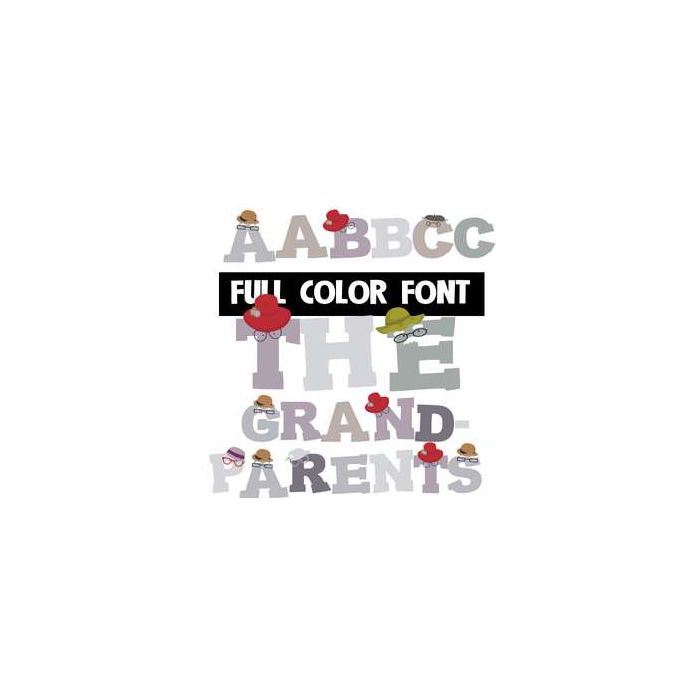
This full-color font features an uppercase sporting gray hair, hats, and glasses. The lowercase is without. Mix up both cases for best results. This font works best for titles, displays, posters and more. Please note color fonts will show as black in non compatible programs. This font type is compatible with Silhouette Studio.